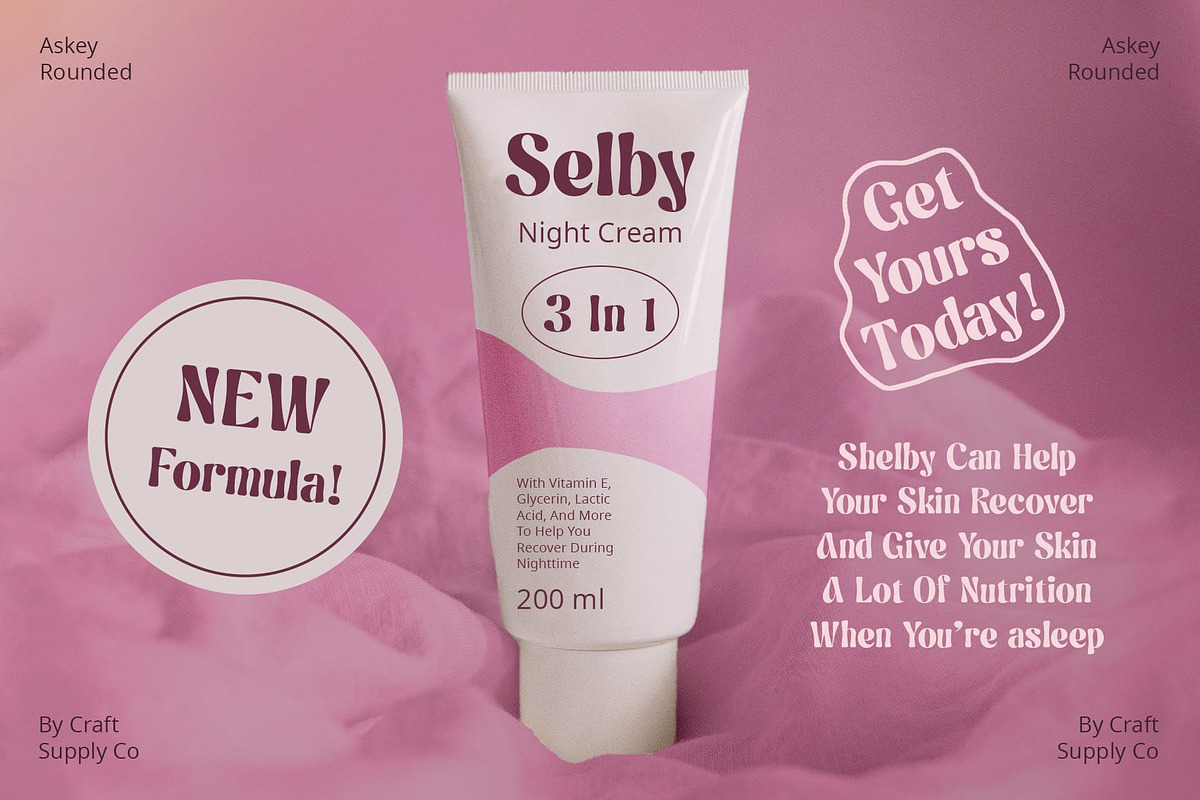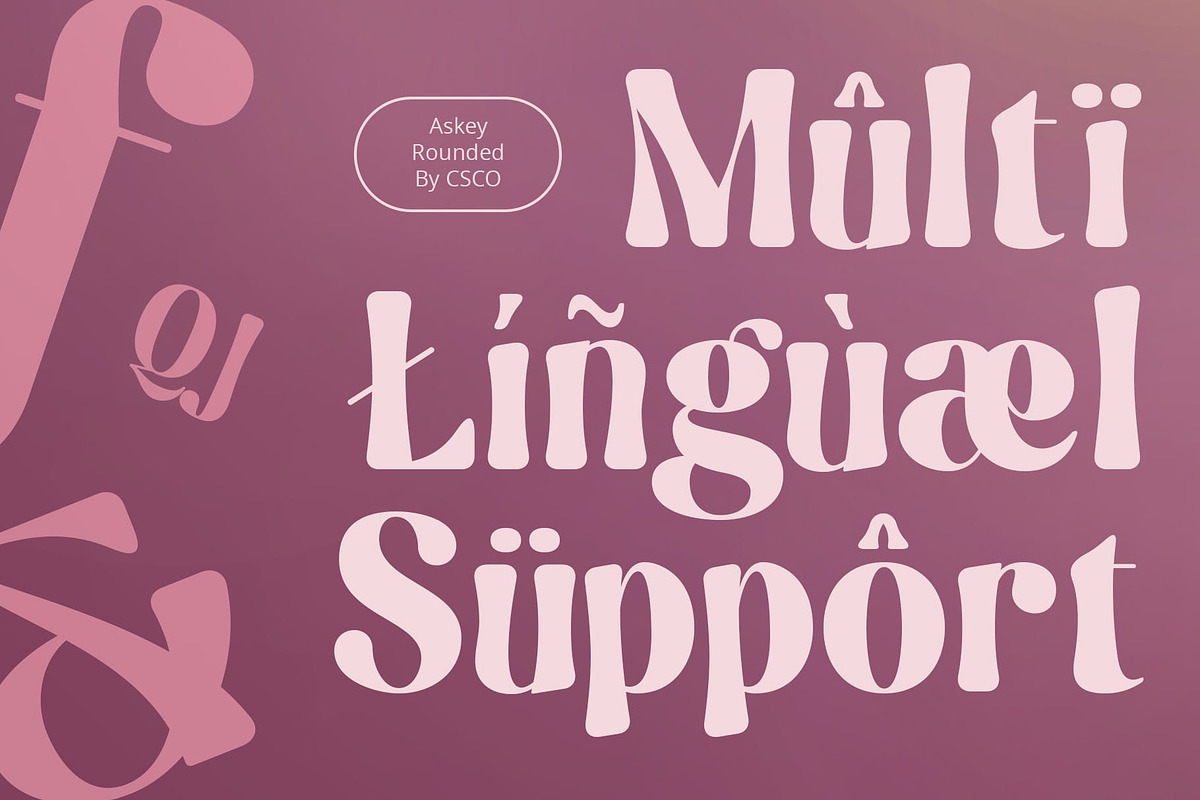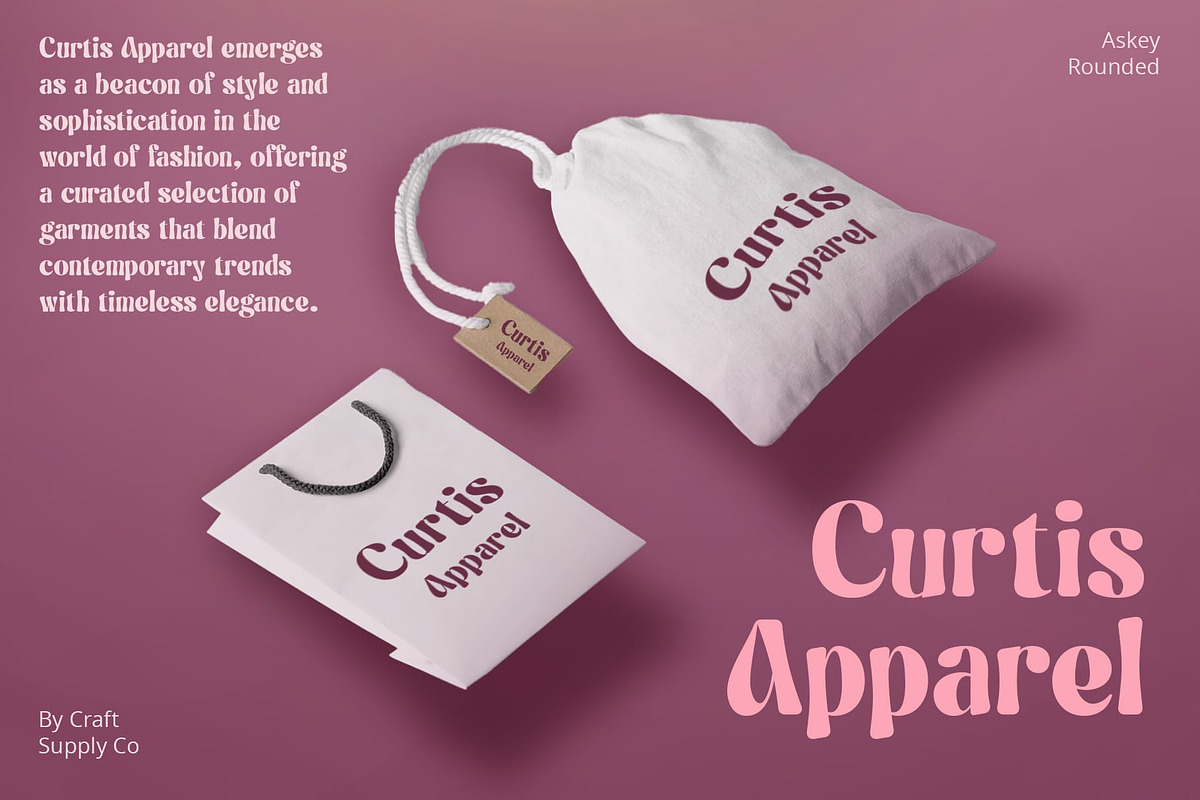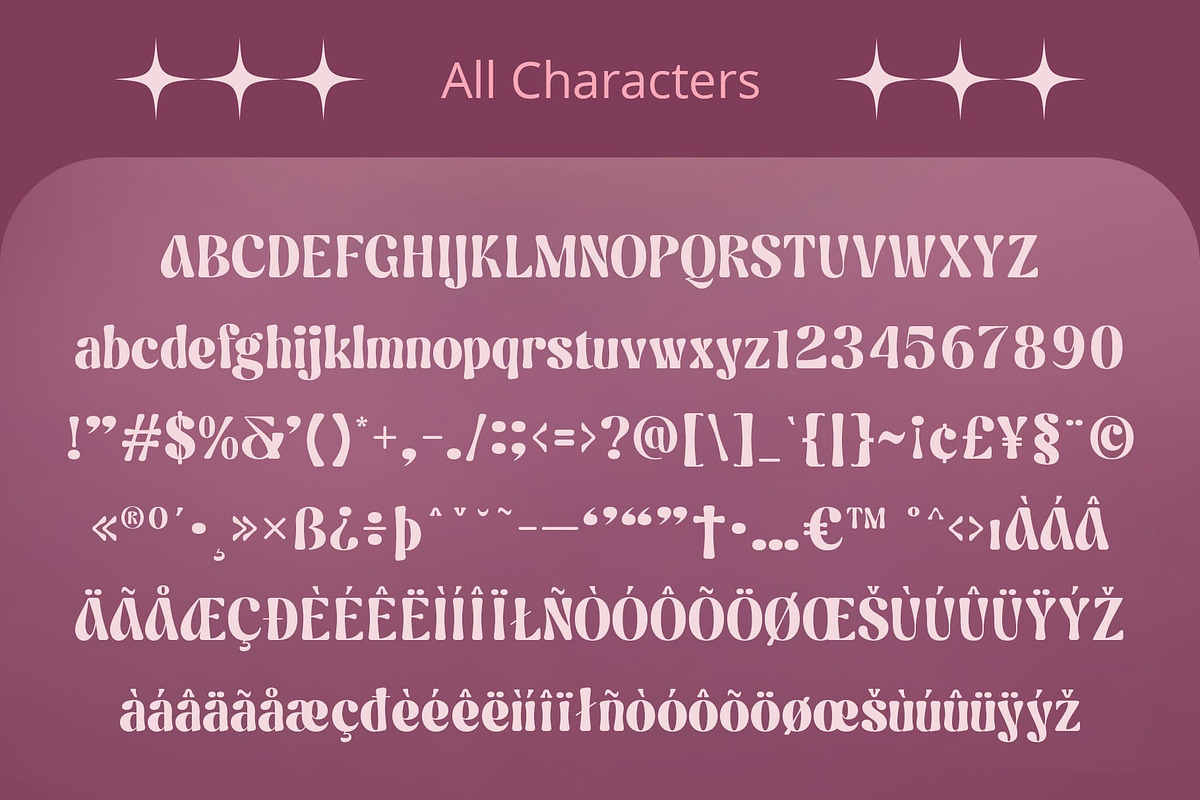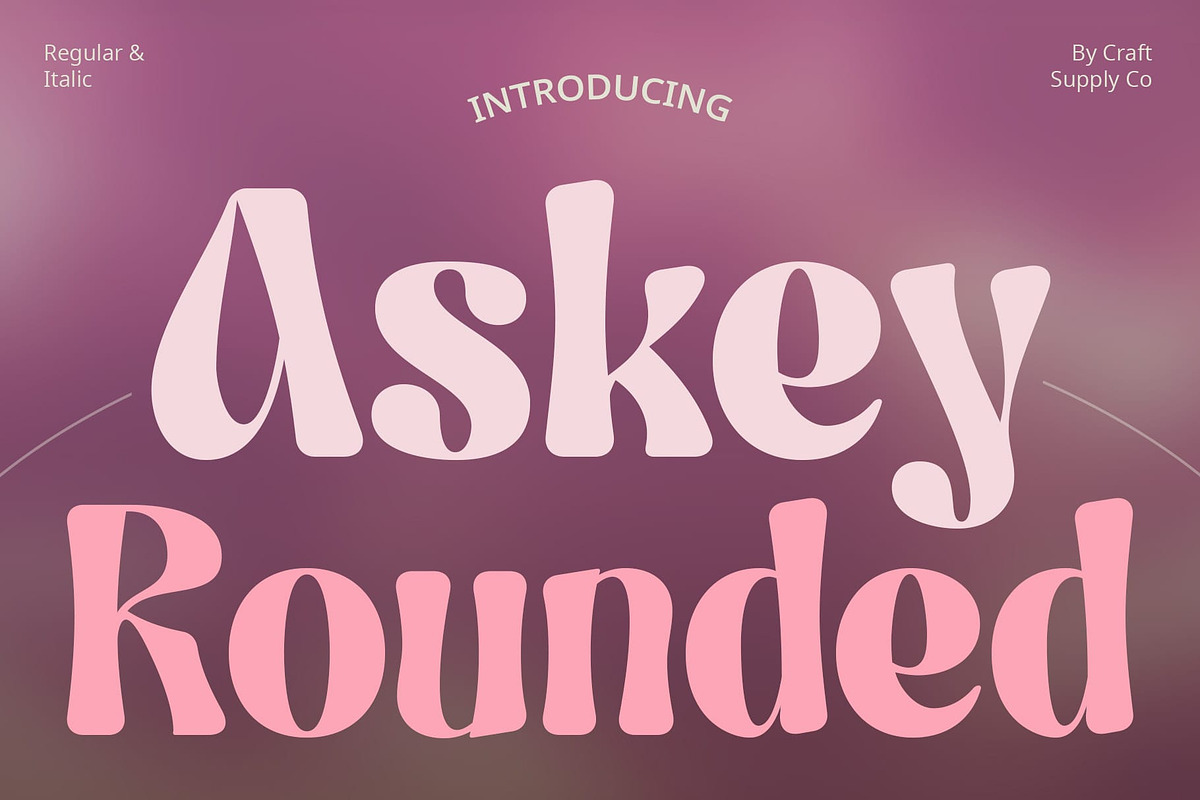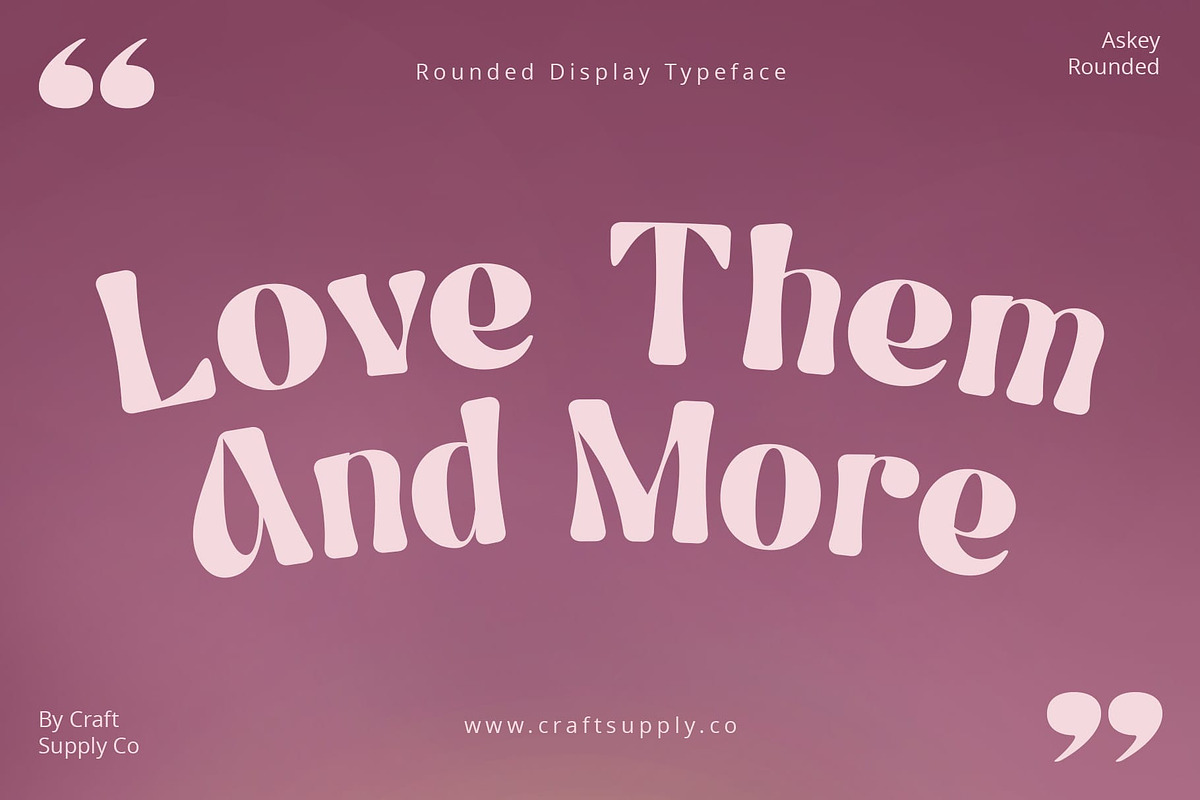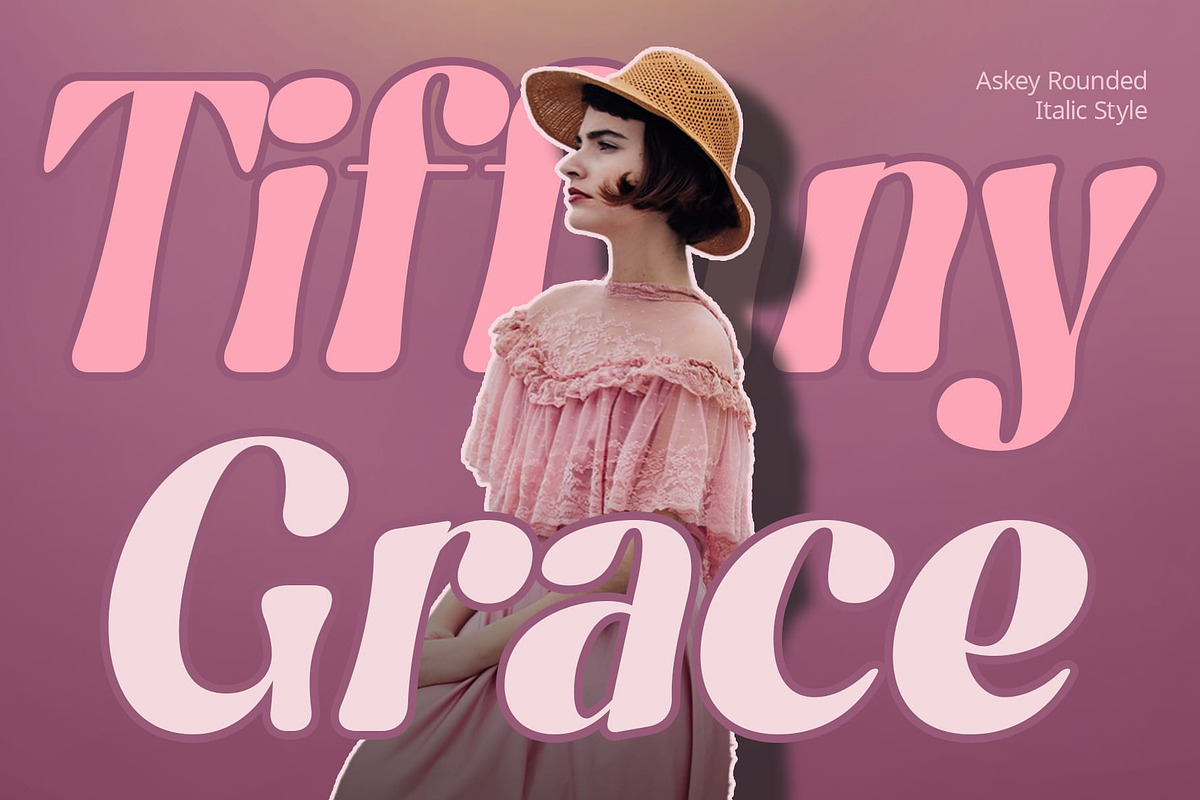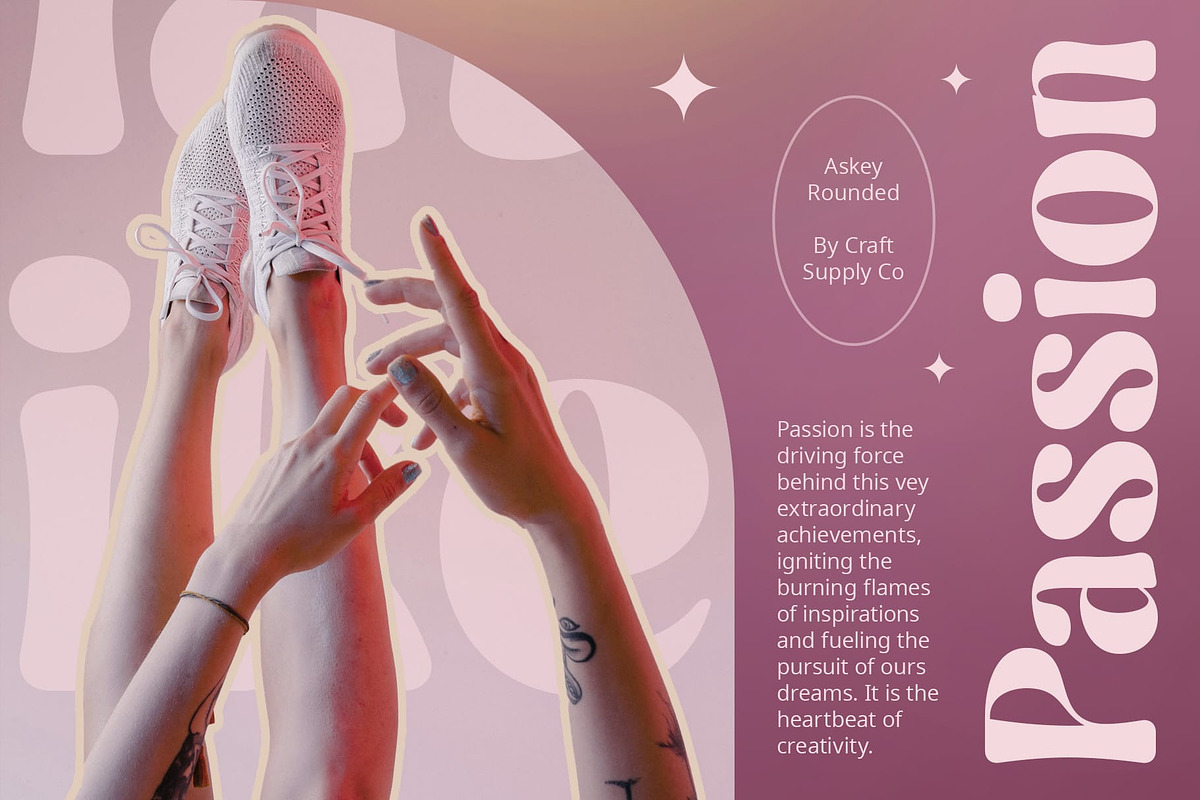
Askey Rounded
Askey Rounded: A Funky Retro Sans Serif
High Contrast Design Askey Rounded boasts a high contrast design, ensuring each character pops and commands attention.
Funky Shape with Retro Vibes Its funky, retro-inspired shape adds a touch of nostalgia and charm to any project, making it perfect for those seeking a vintage aesthetic with a modern twist.
Rounded Stem Ends The rounded stem ends of This font soften its overall appearance, infusing it with a playful and inviting vibe.
Versatile Application Whether you’re working on branding, packaging, posters, or social media graphics, This font offers versatility and character, making it suitable for a wide range of design projects.
Retro Charm with Modern Funk With its high contrast design, funky shapes, and rounded stem ends, This font strikes the perfect balance between retro charm and contemporary flair, making it an ideal choice for designers looking to infuse their projects with a touch of vintage appeal and modern funk.